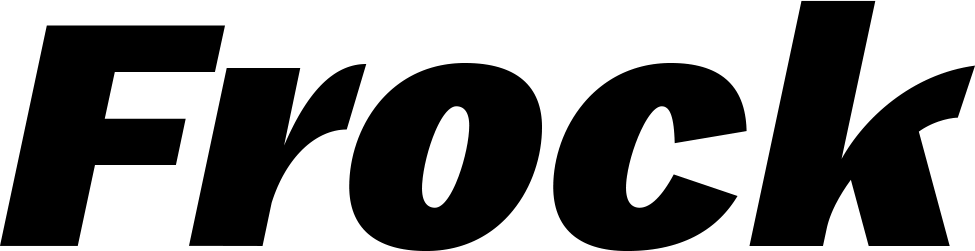
Frock Black Font
With simple and bold character designs, Frock Black brings a modern look to your texts! You can use it for any branding logo, fashion books, channel banners, movie titles, and business cards. This sans serif font has big…
With simple and bold character designs, Frock Black brings a modern look to your texts! You can use it for any branding logo, fashion books, channel banners, movie titles, and business cards. This sans serif font has big characters with an italic style that gives your presentation a formal makeover.